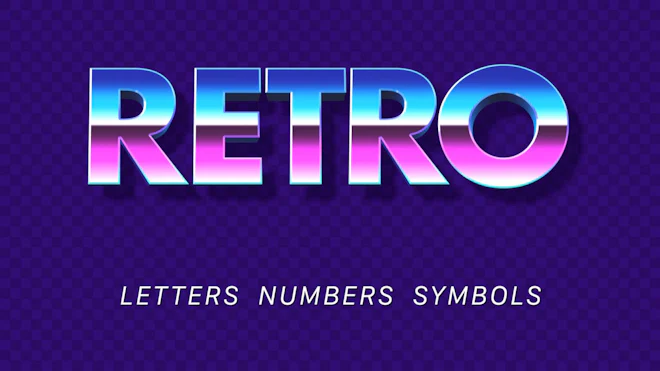
This stock motion graphics video pack includes 74 clips of floating retro wave 80's lowercase and uppercase letters, numbers and symbols on a transparent alpha channel in a seamless loop.